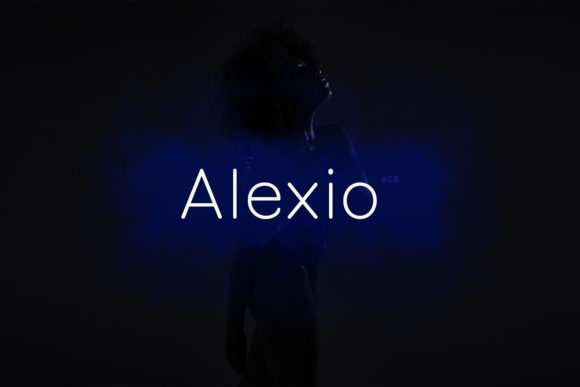
Introducing Alexio Font: The Epitome of Elegance and Distinction
A handcrafted masterpiece, the Alexio Font family emanates a refined charm that elevates your designs to a realm of sophistication. Specially tailored for headlines, this display font possesses an innate ability to captivate audiences and leave a lasting impression. With its natural and clean aesthetic, Alexio effortlessly blends with diverse design concepts, making it the perfect addition to your creative arsenal.
Step into a world where your words dance with elegance. Alexio's graceful strokes and carefully crafted curves lend an air of refinement to your headlines, transforming them into captivating beacons of visual delight. Let your messages shine with newfound clarity and poise, ensuring they command attention and resonate with your audience.
Unleash the boundless possibilities of creative expression with Alexio. Whether you're crafting logos, designing websites, or creating social media graphics, this font family effortlessly adapts, enhancing your designs with a timeless appeal. Witness the transformation as ordinary text metamorphosizes into captivating headlines, drawing eyes and sparking conversations.
Immerse yourself in a symphony of opulence and finesse. Alexio's meticulously designed characters exude a sense of luxury and exclusivity, elevating your projects to the highest echelons of design. Imagine your words adorned with a touch of sophistication, commanding attention and leaving an indelible mark on your audience's minds.
Experience the versatility of a font that seamlessly blends with any design aesthetic. Alexio's inherent adaptability allows it to complement a wide range of styles, effortlessly harmonizing with both classic and contemporary design elements. Whether you seek a touch of understated elegance or a burst of vibrant energy, Alexio gracefully adapts, ensuring your headlines shine with brilliance.
Join the ranks of discerning designers who recognize the power of typography. Alexio is more than just a font; it's an investment in your creative endeavors, a tool that empowers you to transcend boundaries and captivate your audience. Embrace the allure of Alexio and watch as your designs blossom into works of art, leaving an enduring legacy of visual excellence.